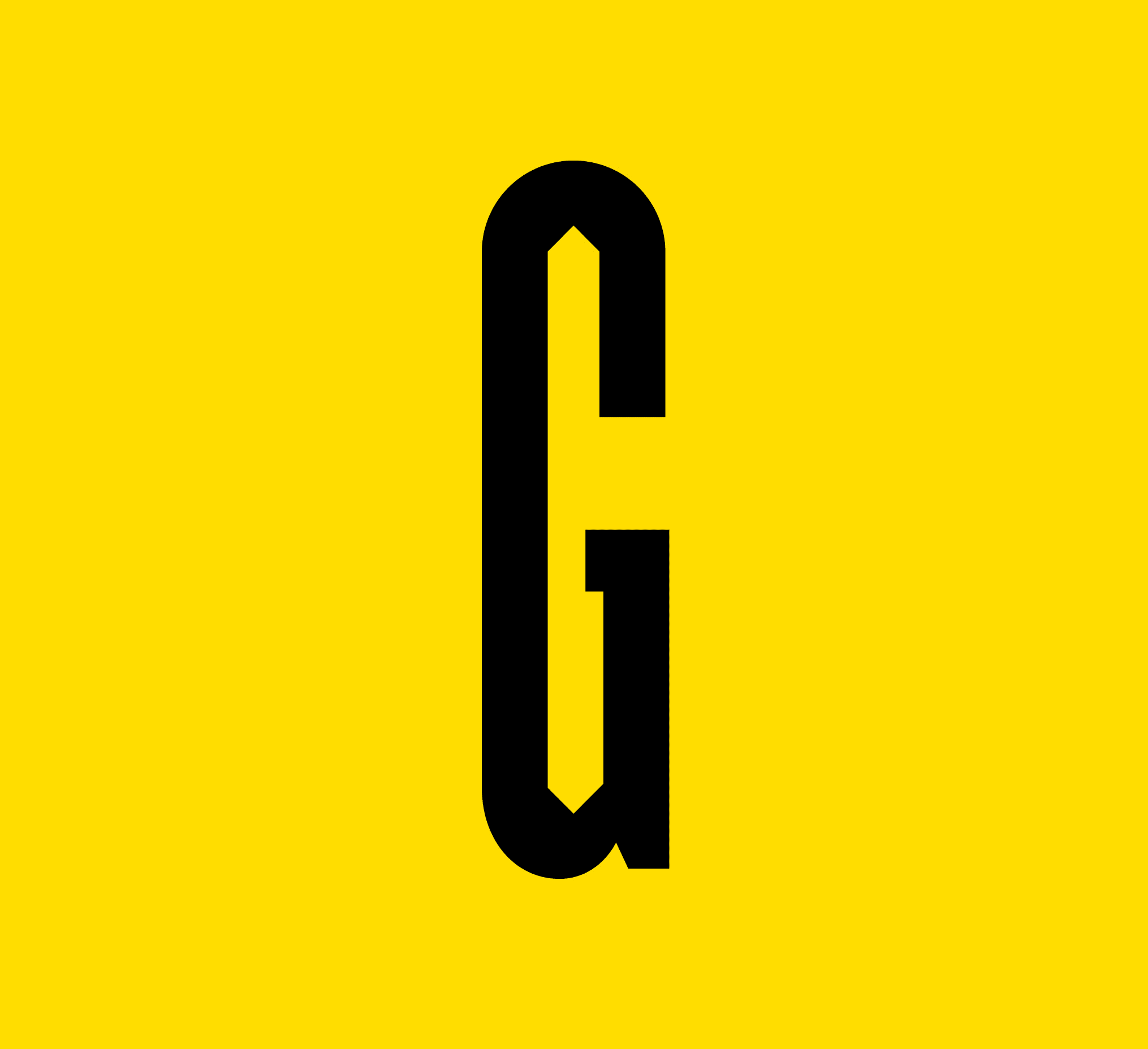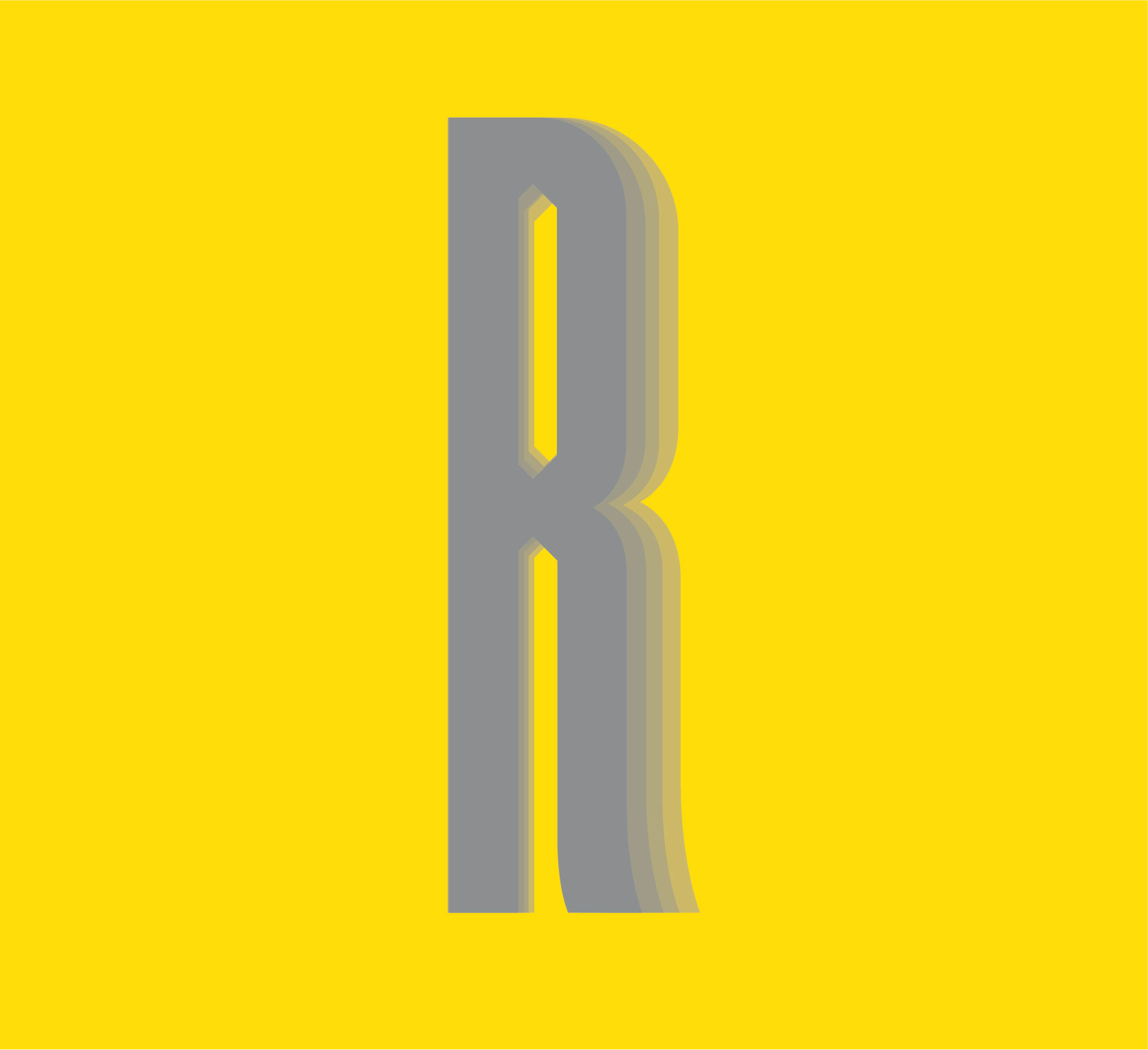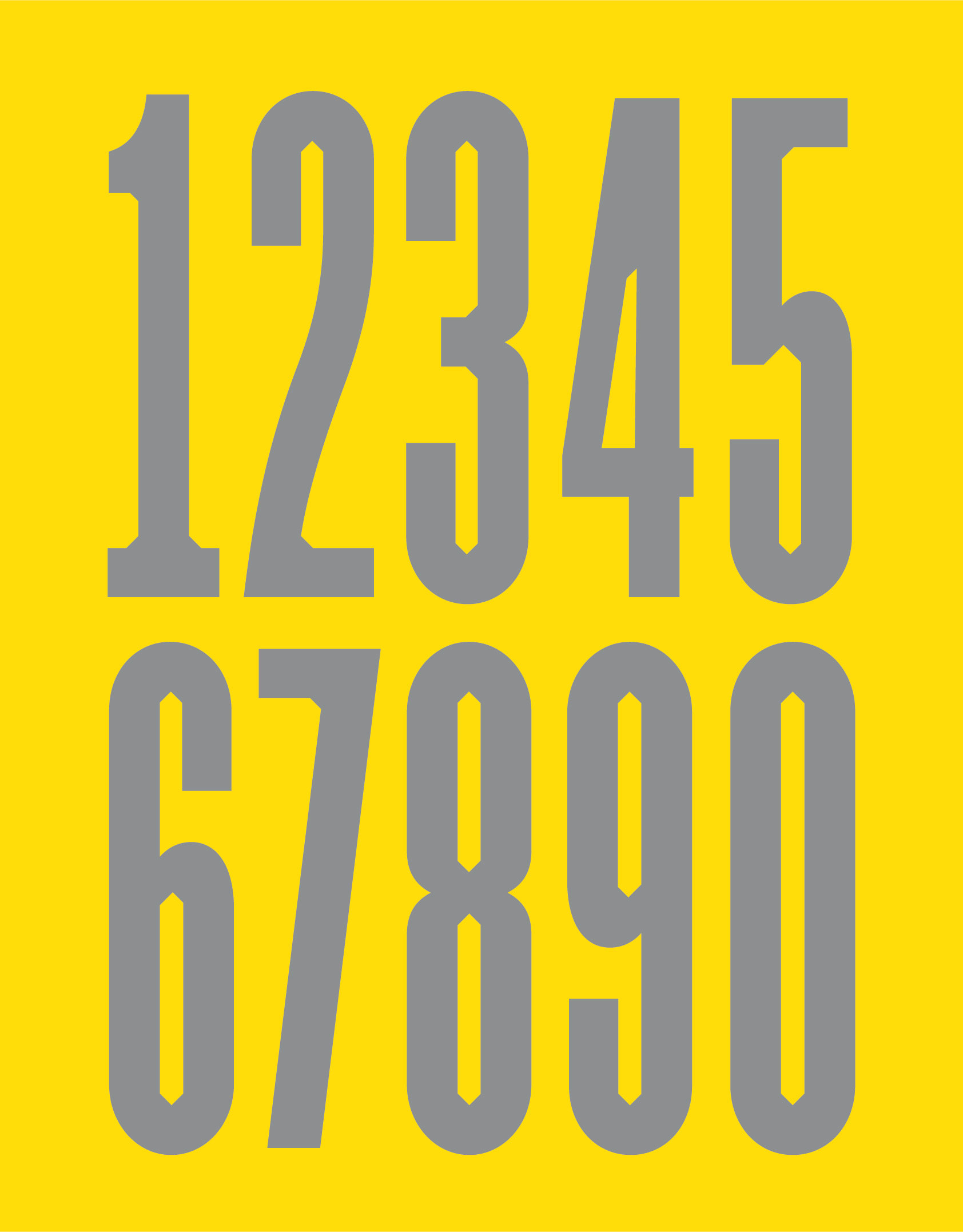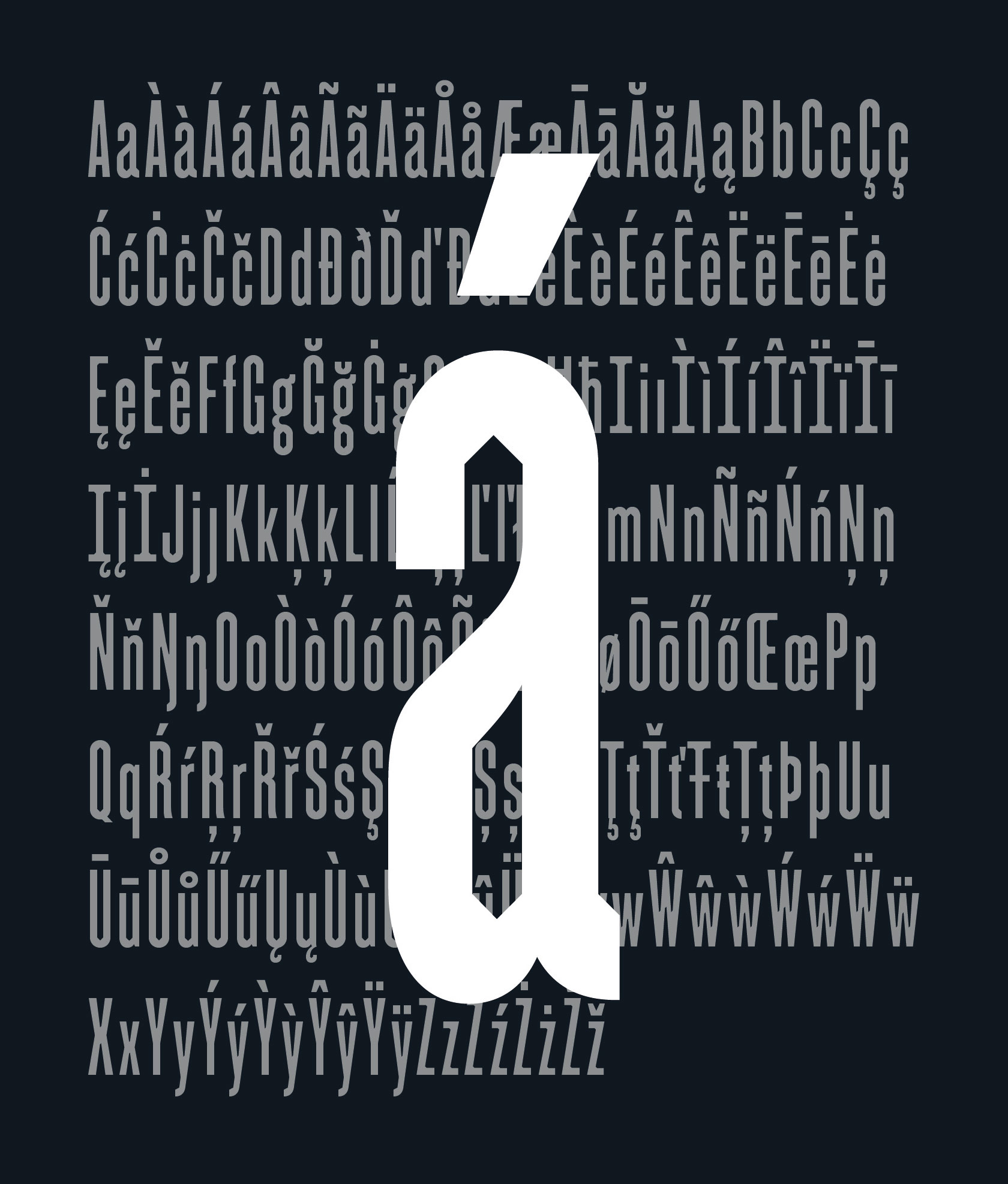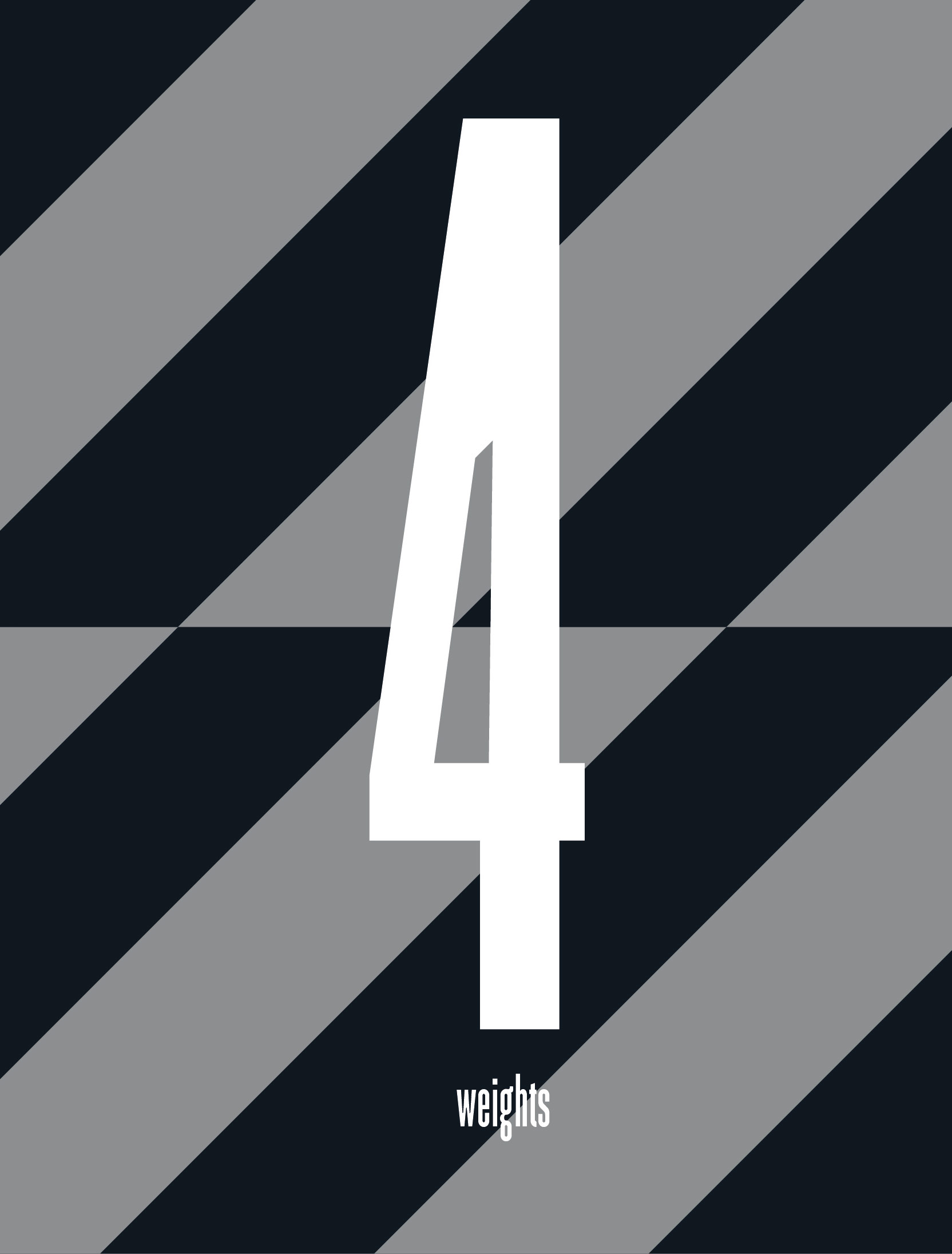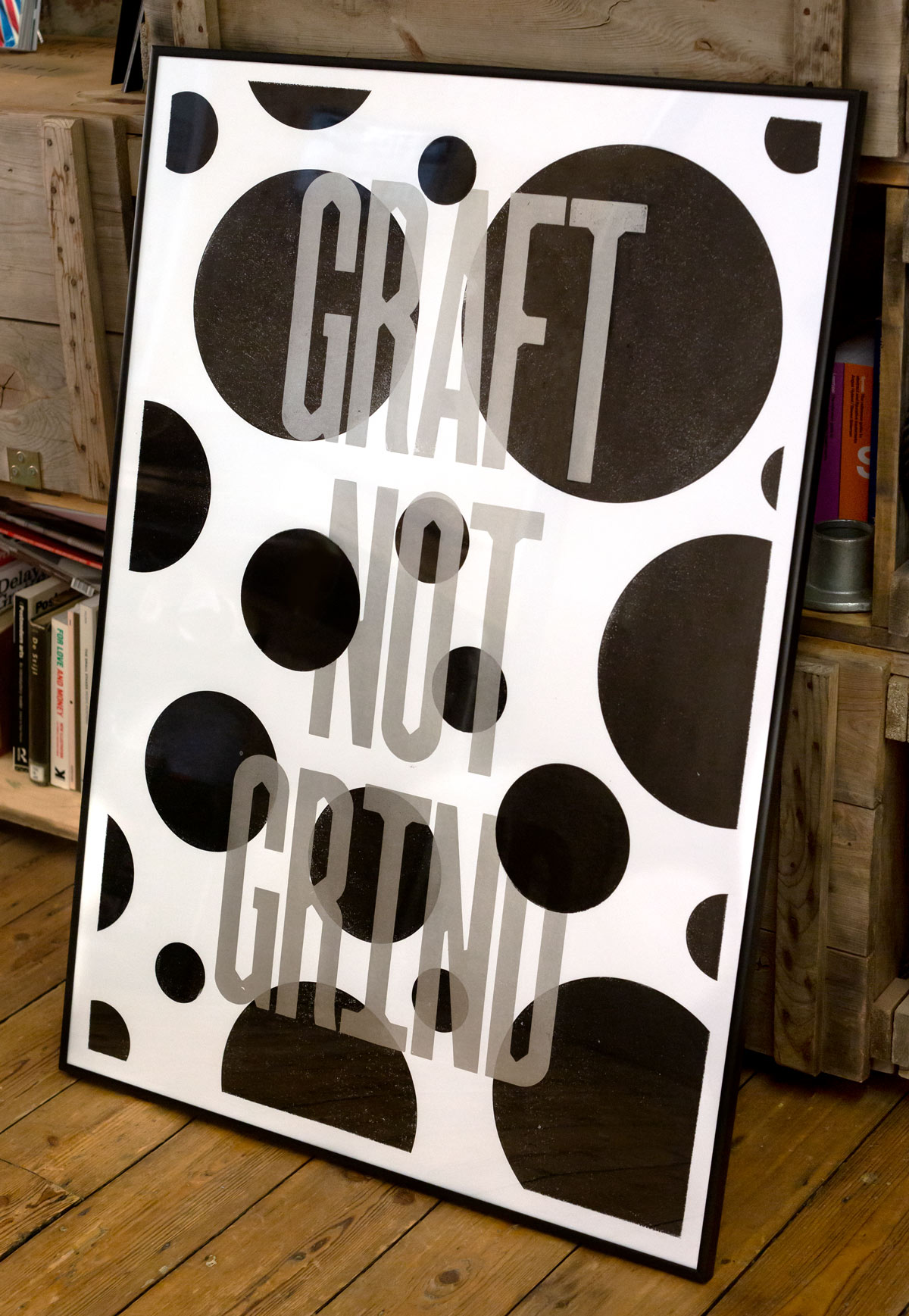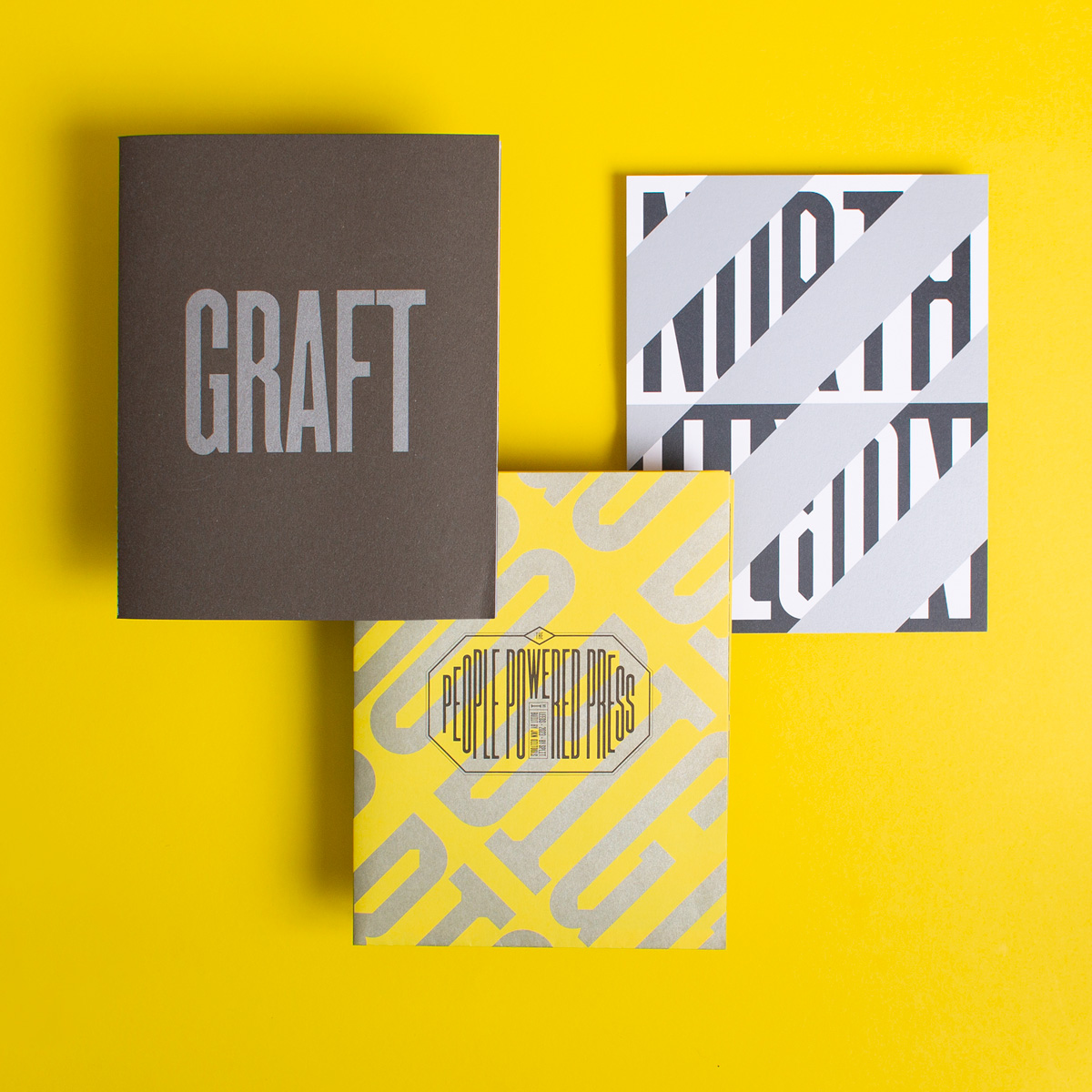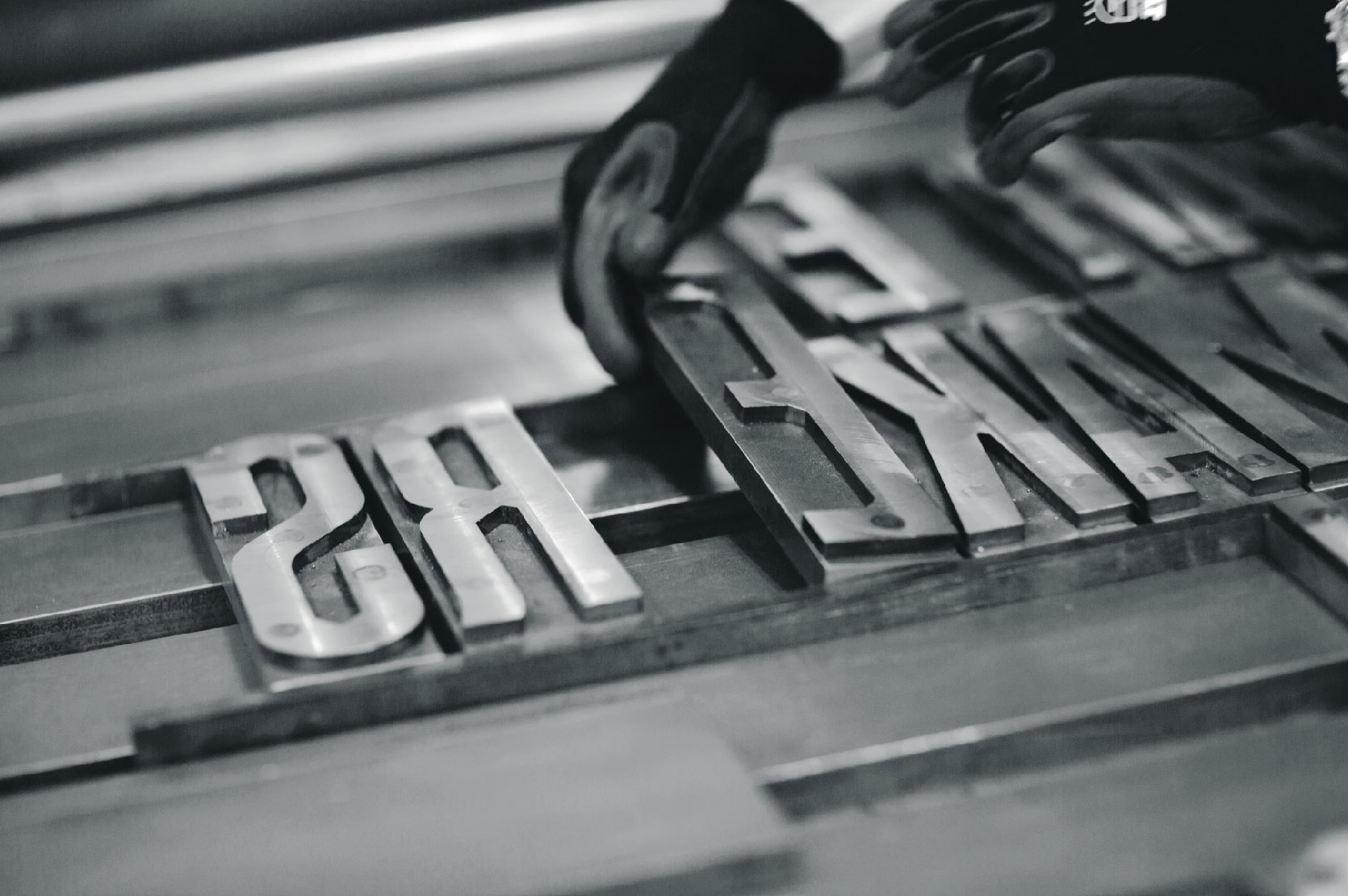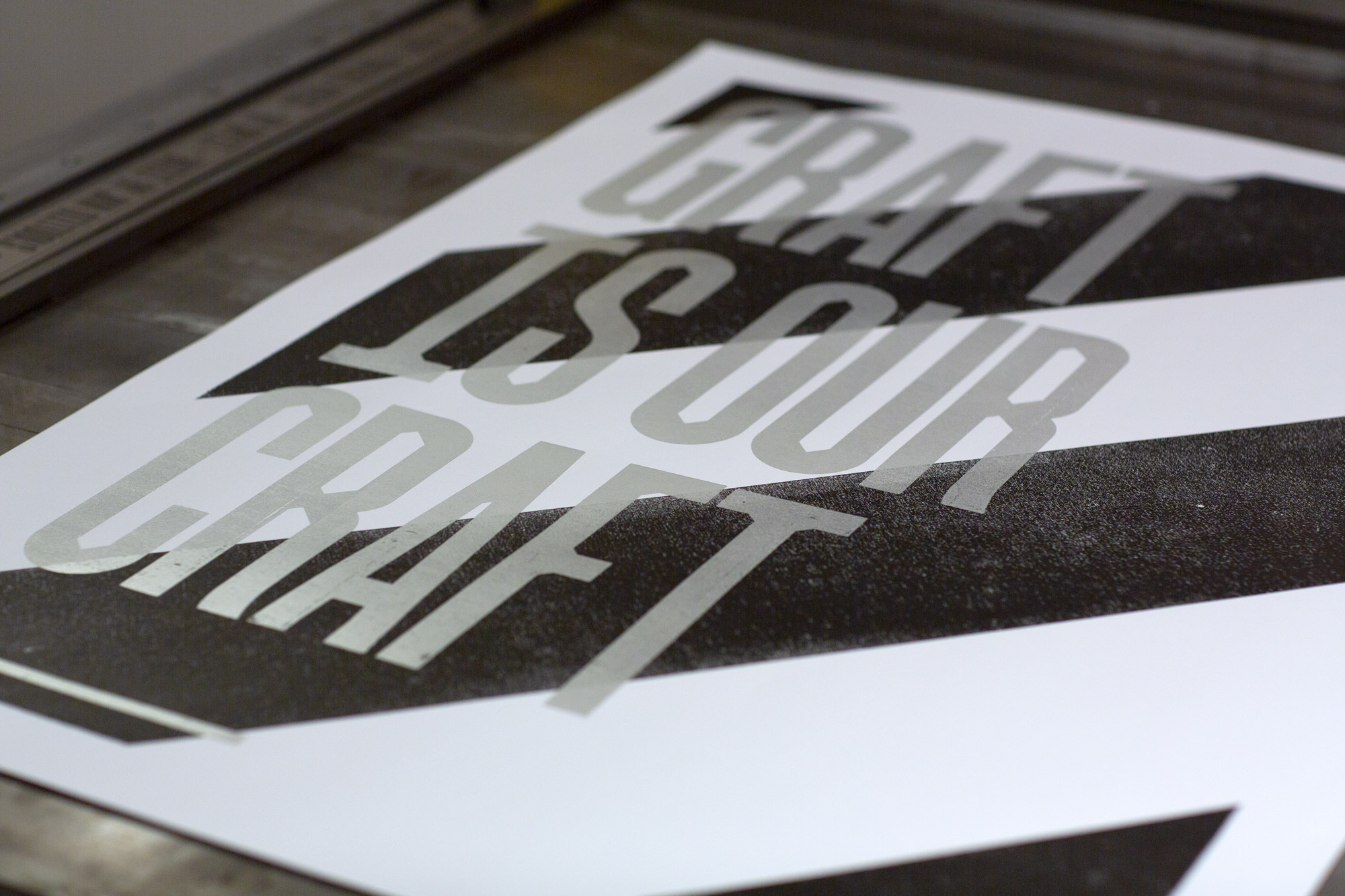
People powered: Split's Graft typeface goes digital for the North
Designed as a display face for Split's giant People Powered Press, Graft is a new condensed typeface forged in the north of England for the largest letterpress printing press in the world per Guinness World Records.
The typeface has been expanded for digital release in four weights and with an extensive character set.
“The letters’ forms take inspiration from the north’s rich industrial heritage, using the shape of the cross section of a steel I-beam as their starting point. But it’s through their purpose, to amplify local voices – in part realised through the creation of the People Powered Press – that Split offers up Graft as a typeface for the North” notes Leeds-based studio Split.
“Broad ee-bah-gum-Yorkshire is by no means the only language spoken in the north of England. Graft’s extensive character set has been designed in recognition of the region's linguistic diversity. Over 300 languages are now spoken in the UK. For the many northerners speaking the wide variety of languages using the Roman alphabet, Graft works.”
Split has collaborated with paper company Fedrigoni & printers Pressision to create a sampler for Graft, which comes in a zip-perf folder, holding a singer stitched booklet and fold-out poster that tells the story of the typeface’s design and how the People Powered Press came to be. The sampler is printed throughout in black and metallic silver.